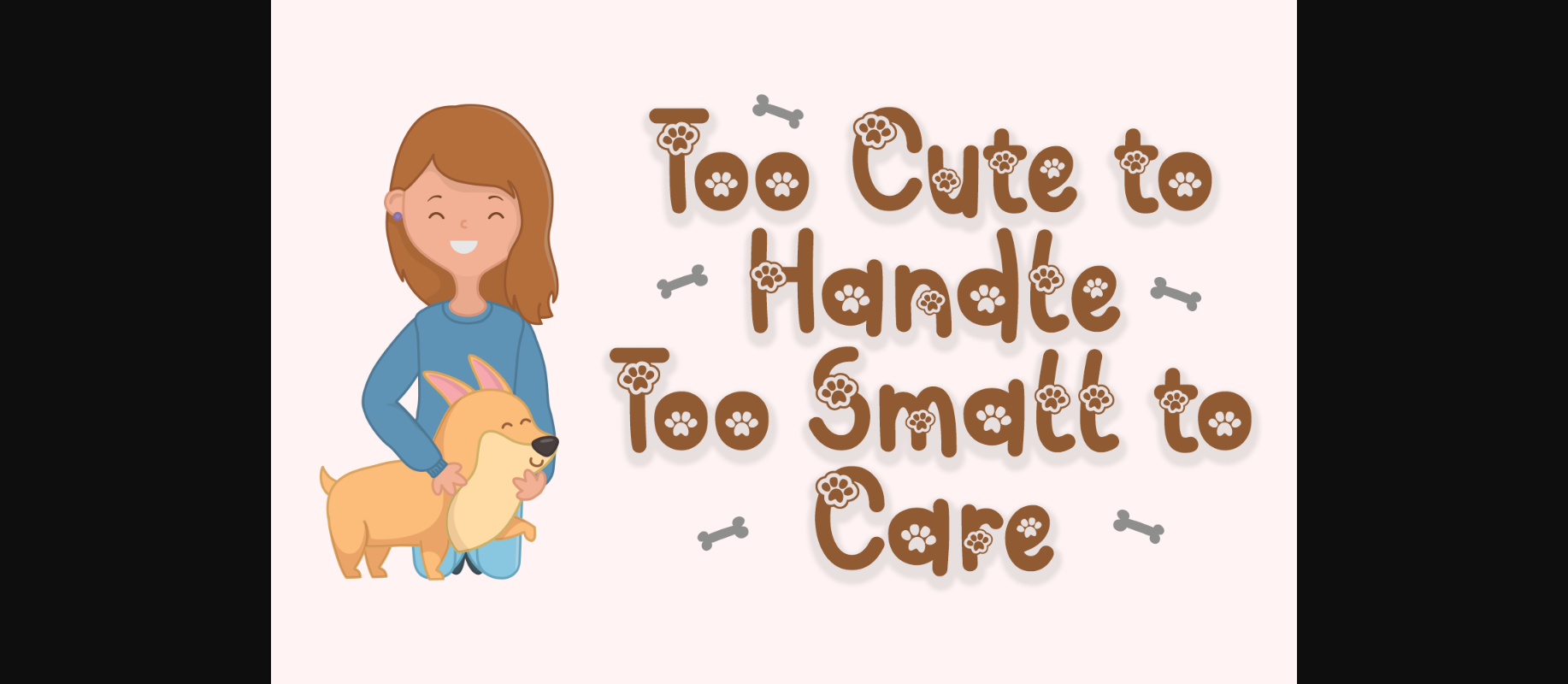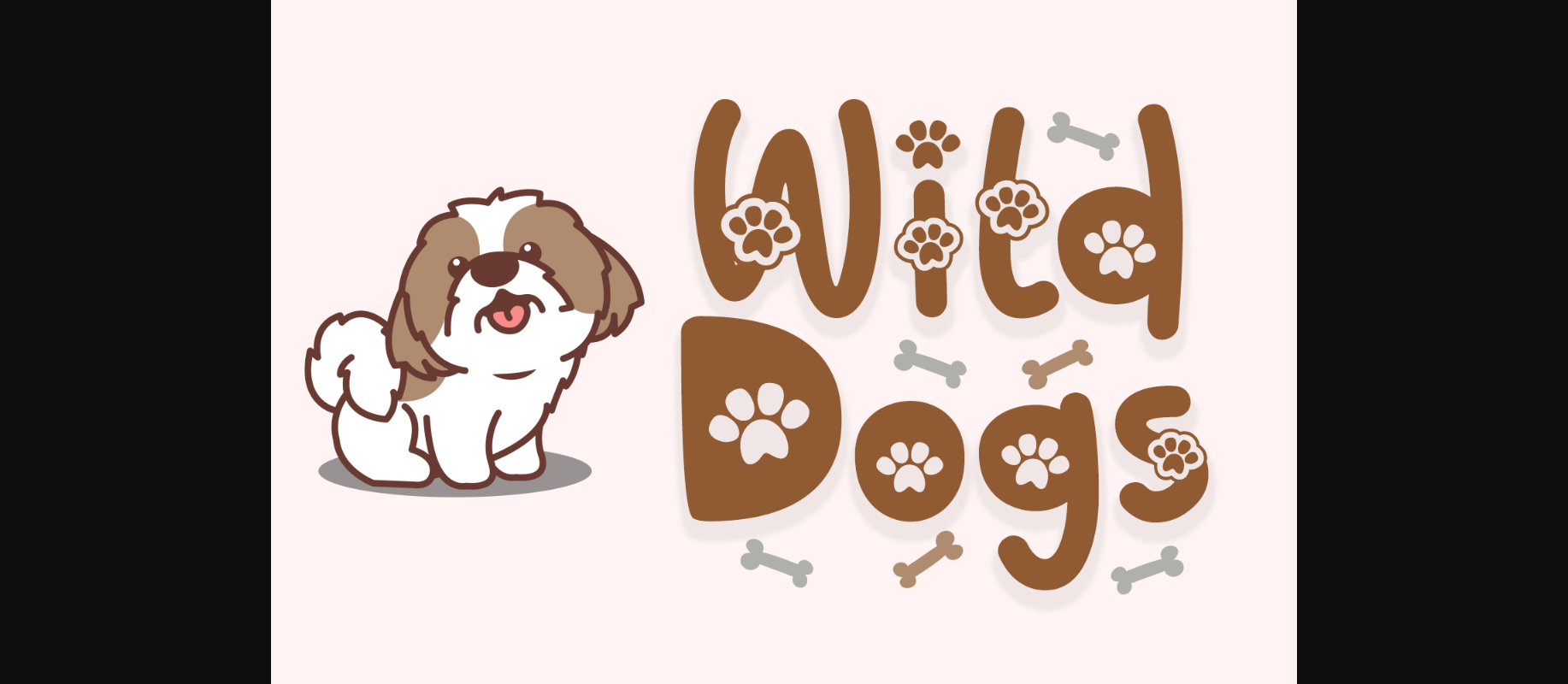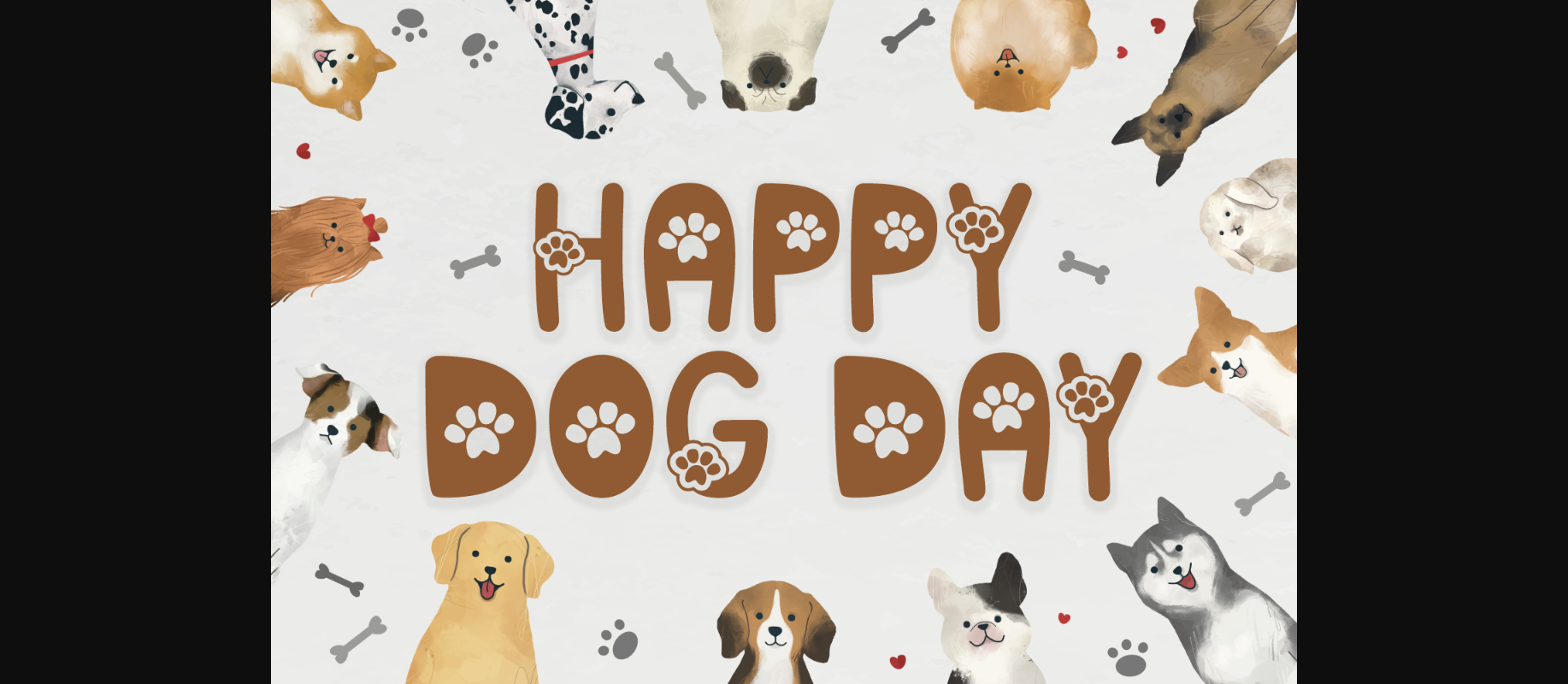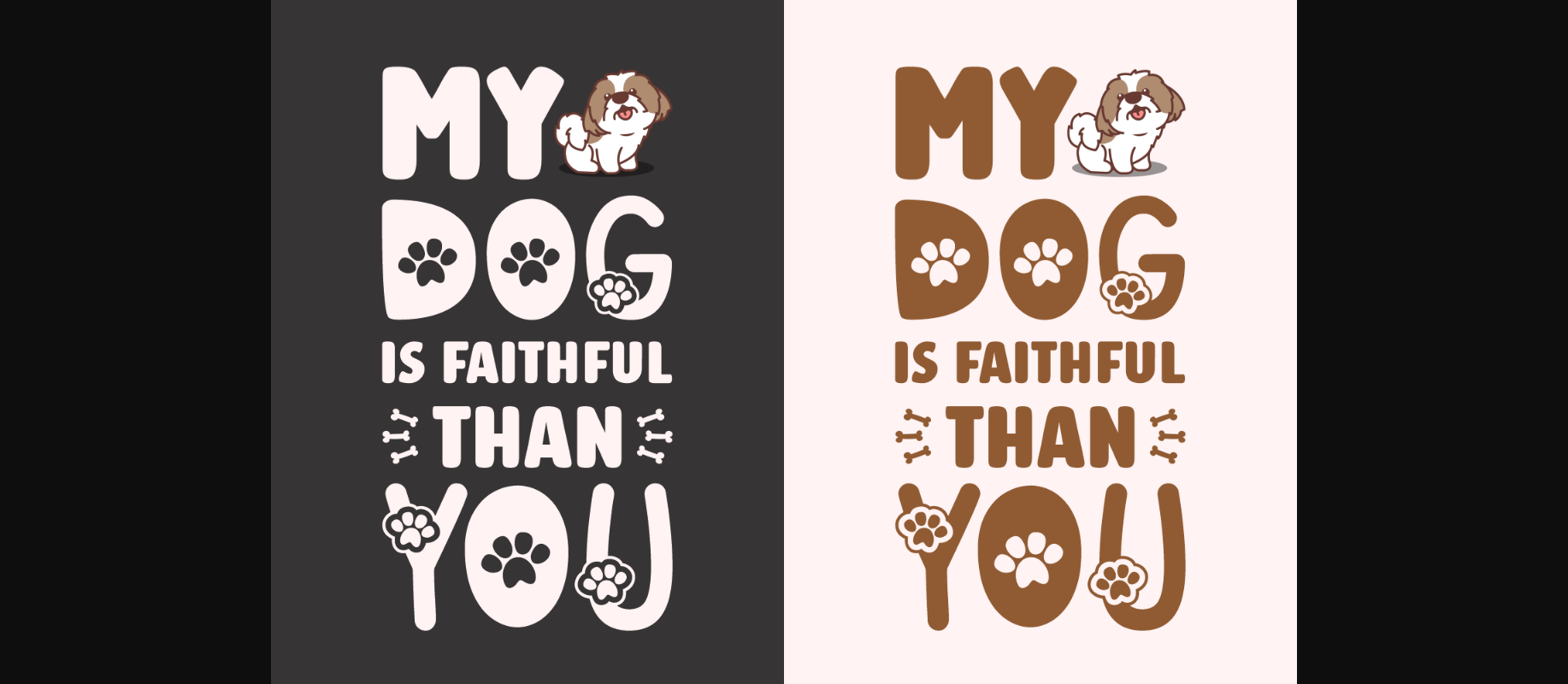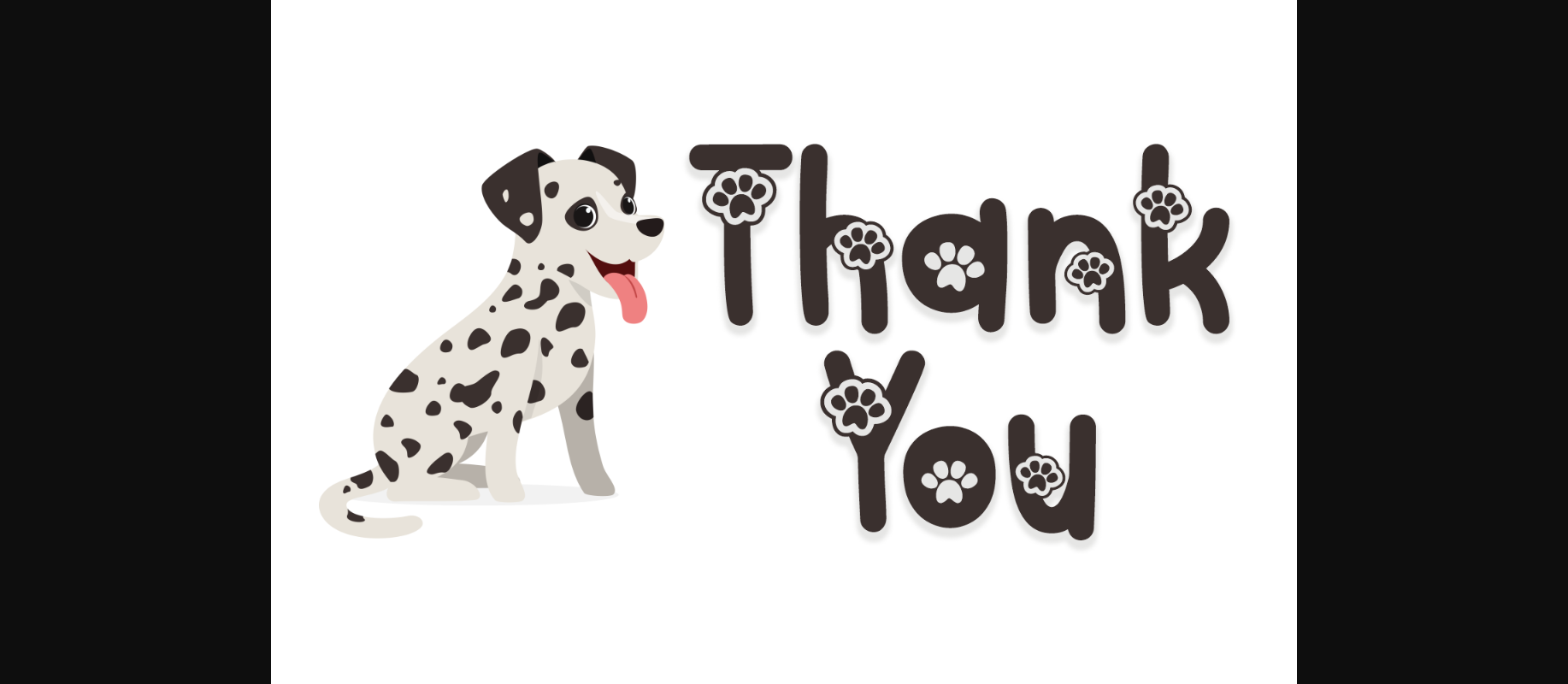
Wild Dogs Font
About Wild Dogs Font
Wild Dogs is a delightful and adorable font with tiny paw prints! This charming typeface adds a touch of whimsy to any text, capturing the playful spirit of our furry friends. Each letter is carefully crafted with lovingly designed paw prints, creating a truly irresistible and cute aesthetic.
It is the perfect choice for projects related to pets, animal-themed events, children’s materials, or any design that calls for a sprinkle of cuteness. Let your words leave a trail of paws with this lovely font!